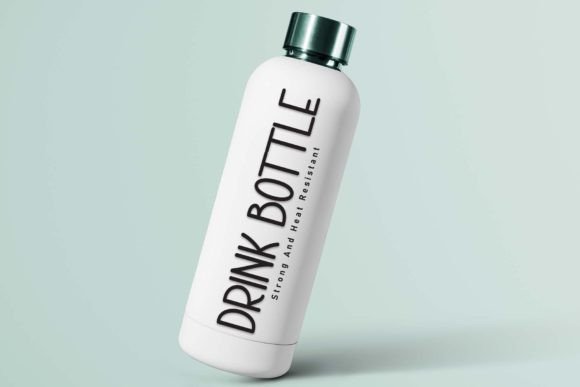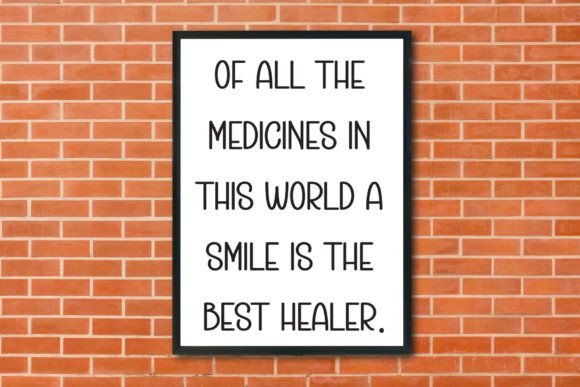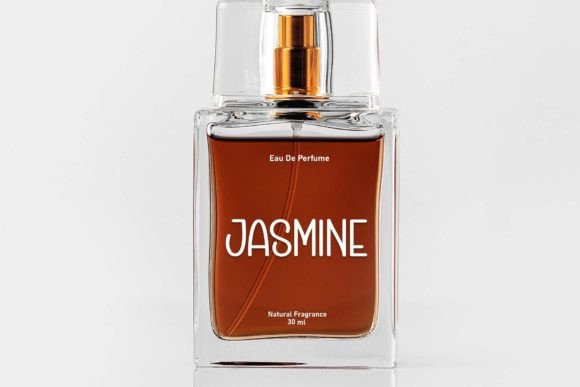
Introduction to Nature Handmade Font
Enter the Nature Handmade Font, a clean and approachable sans-serif font that’s perfect for user interfaces, informative signage, and modern branding. With its clean lines and friendly character, this font is a valuable addition to any designer’s toolkit. Whether you’re working on a digital project or creating print materials, the Nature Handmade Font ensures your message stands clear and approachable, making it an essential design resource for any creative project.
Key Features of Nature Handmade Font
- Unique Hand-Drawn Design: Nature Handmade Font boasts a distinctive, hand-crafted look that adds a touch of personality to any design project.
- Perfect for Various Designs: Nature Handmade Font is ideal for a wide range of creative projects, including logos, branding materials, packaging designs, and more.
- Comprehensive Character Set: The font includes a comprehensive set of characters, including uppercase and lowercase letters, numbers, and special characters, making it suitable for both short and long text-based designs.
Honest Review: Nature Handmade Font
I recently stumbled upon the Nature Handmade Font and was excited to dive in and see what it had to offer. As a designer, I’m always on the lookout for high-quality design resources to elevate my creative projects.
Here are some things that work well with the Nature Handmade Font:
- ✨ High-quality typography: The font is beautifully crafted with intricate details and subtle textures that give it a unique, hand-drawn feel.
- ✨ Versatile: The font can be used for a wide range of creative projects, from branding and advertising to digital products and print materials.
- ⚠️ Limited character set: The font only includes uppercase and lowercase letters, with no numbers or punctuation marks.
Overall, I think the Nature Handmade Font is a great design resource for designers who want to add a touch of handmade charm to their creative projects. While it has some limitations, its high-quality typography and versatility make it a worthwhile addition to any design library.
The Nature Handmade Font is ideal for various creative projects such as:
- Outdoor event promotions and signage
- Home decor and furniture labels
- Food and beverage branding